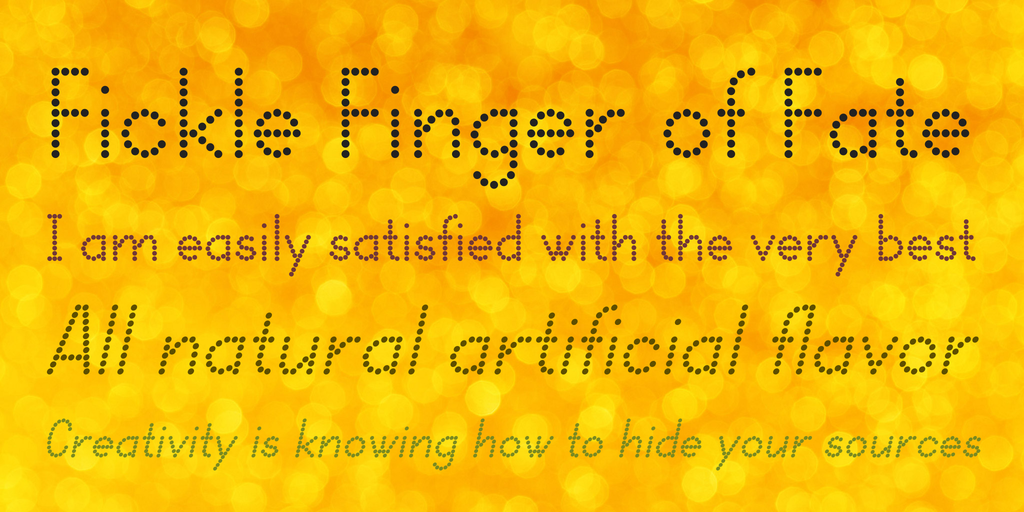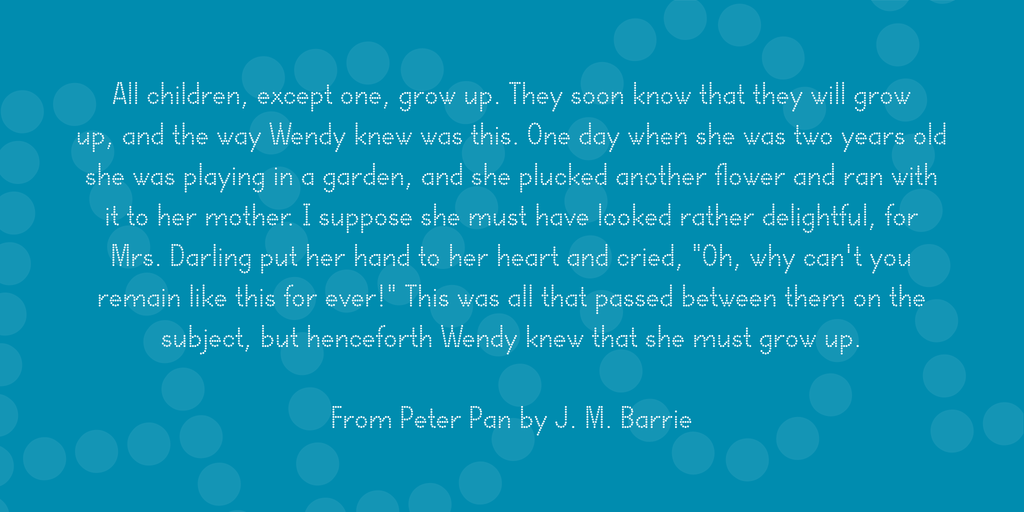
Discover the Unique Charm of Dotcirful Font: A Creative Marvel by Situjuh Nazara
In the vast and ever-evolving world of typography, where fonts are the building blocks of design and communication, a standout creation can make all the difference. Dotcirful, a font crafted by the talented Situjuh Nazara, has emerged as a distinctive and captivating typeface that has garnered attention from designers, crafters, and typography enthusiasts alike. This article aims to delve into the essence of Dotcirful, exploring its origins, characteristics, and the creative process behind its development.
The Genesis of Dotcirful
Dotcirful is a font created by Situjuh Nazara, a name that resonates within the community of typography and design. With a keen eye for detail and a passion for innovation, Nazara embarked on the journey to create Dotcirful, aiming to contribute a unique voice to the typographic landscape. The name “Dotcirful” hints at the playful and dotted nature of the font, suggesting a blend of whimsy and functionality.
Characteristics of Dotcirful
Dotcirful stands out with its distinctive design elements. The font features a combination of circular dots that form the letters, giving it a playful, yet structured appearance. This unique approach to typography makes Dotcirful versatile, suitable for a range of applications from digital media to print, and from headlines to body text. The font’s design ensures readability while offering a fresh and modern aesthetic that can elevate any design project.
- Unique Dotted Design: The defining feature of Dotcirful is its use of dots to form letters, creating a visually appealing and cohesive look.
- Versatility: Dotcirful’s design makes it adaptable for various uses, including but not limited to, logos, posters, digital interfaces, and craft projects.
- Readability: Despite its unconventional design, Dotcirful maintains a high level of readability, making it practical for both display and body text.
- Modern Aesthetic: The font embodies a modern and fresh look, perfect for designers seeking to add a contemporary touch to their work.
The Creative Process
The development of Dotcirful involved a meticulous process, from conceptualization to the final refinement stages. Situjuh Nazara approached the project with a clear vision: to create a font that not only stands out visually but also offers practicality and versatility. The process included experimenting with different dot patterns, ensuring consistency across the character set, and refining the font for optimal readability and aesthetic appeal.
Applications of Dotcirful
Dotcirful’s unique characteristics make it suitable for a wide array of applications. Designers can use it to add a playful touch to children’s book titles, create eye-catching posters, or design engaging digital content. Crafters, on the other hand, can incorporate Dotcirful into their projects, such as handmade cards, scrapbooking, and other paper crafts, to add a personalized and creative element.
Dotcirful, crafted by Situjuh Nazara, is more than just a font; it’s a creative tool that offers designers and crafters a unique way to express their ideas. Its distinctive dotted design, combined with readability and versatility, positions Dotcirful as a valuable addition to any creative arsenal. Whether you’re a professional designer or a hobbyist looking for that special something to make your projects stand out, Dotcirful is certainly worth exploring.
As the world of design continues to evolve, contributions like Dotcirful remind us of the power of typography in shaping visual communication. With its blend of whimsy, functionality, and modern appeal, Dotcirful is poised to leave a mark on the design landscape, inspiring creativity and innovation in equal measure.